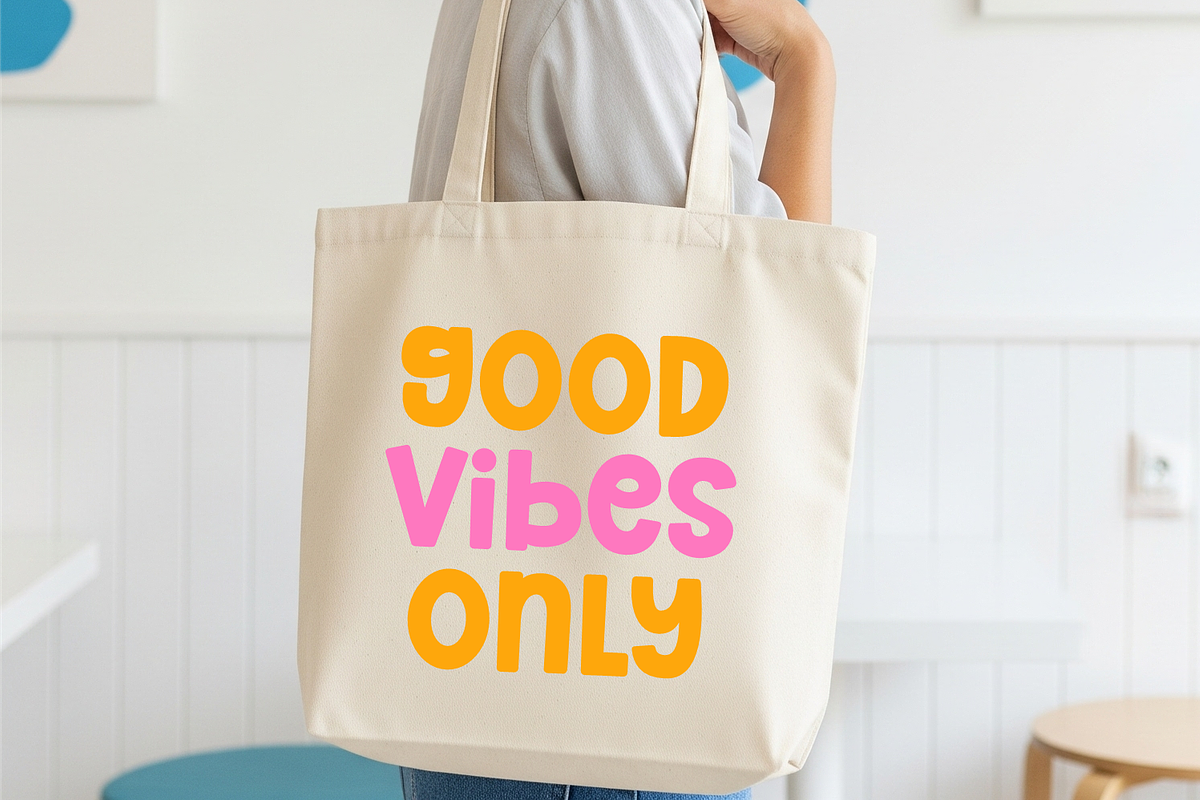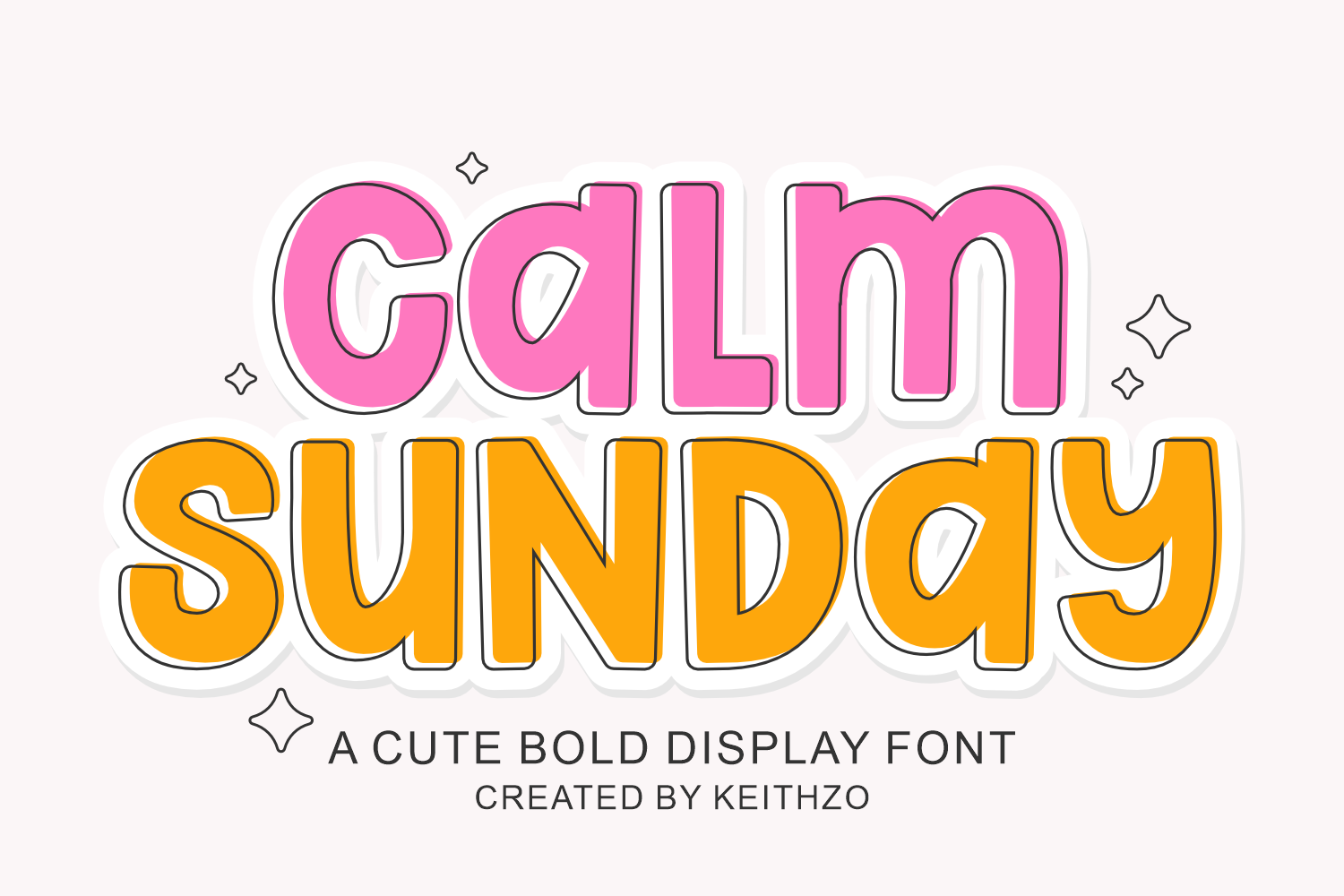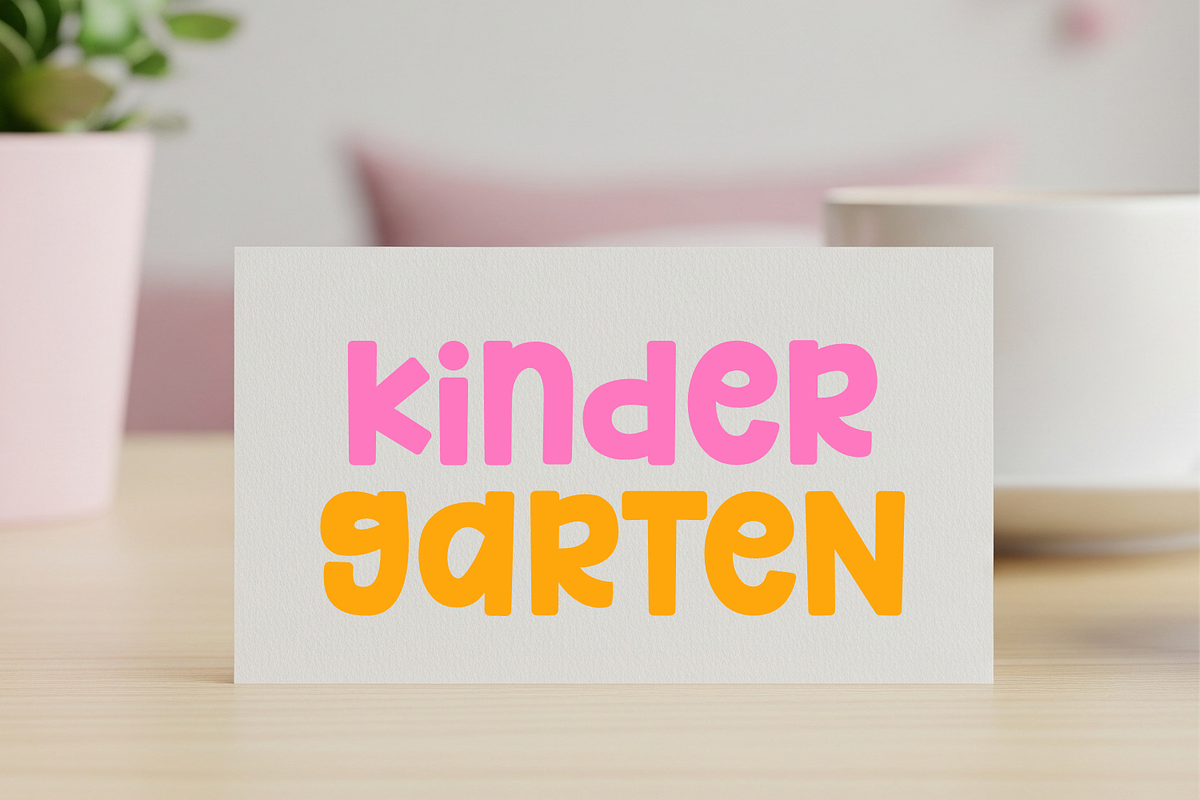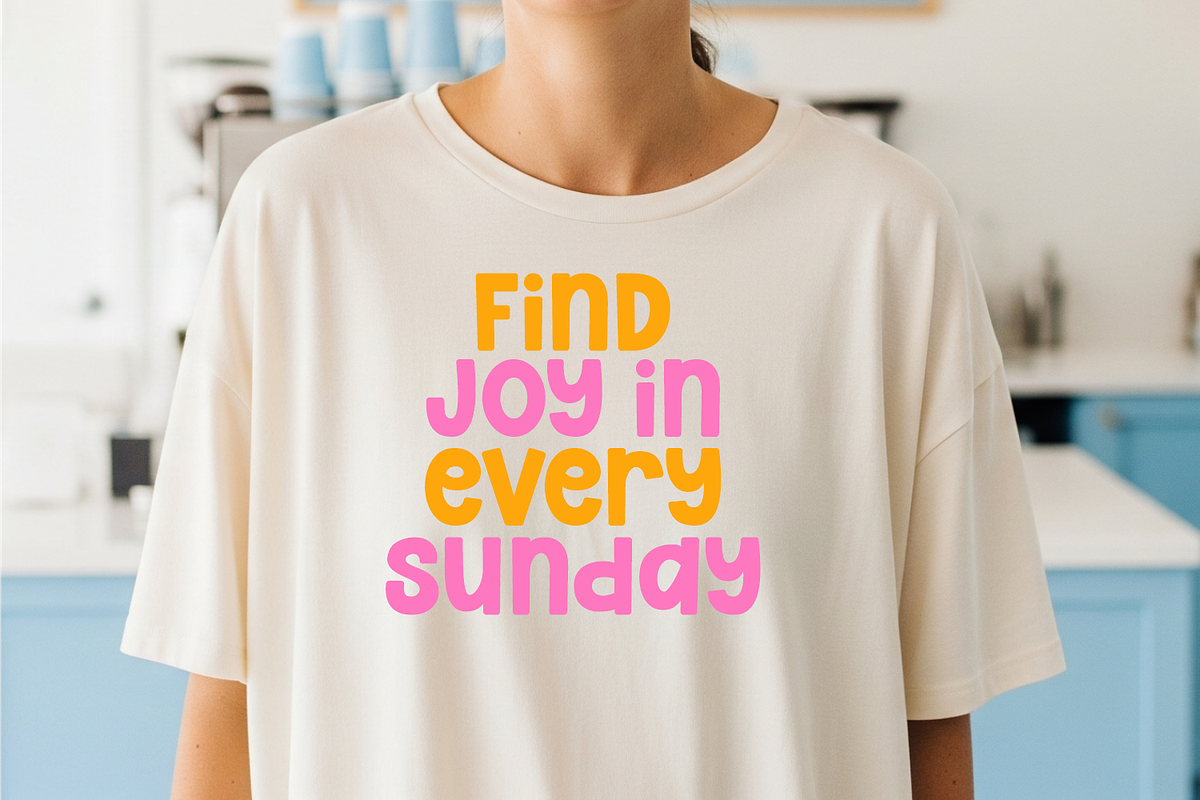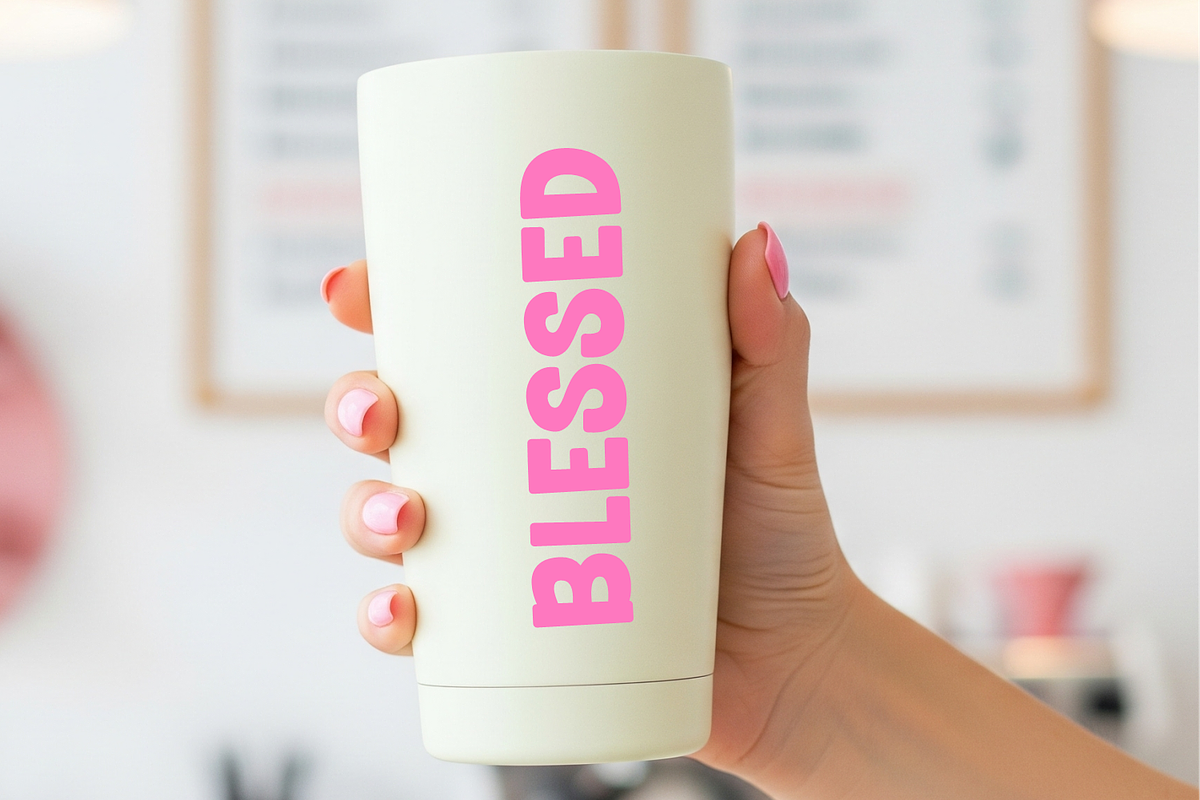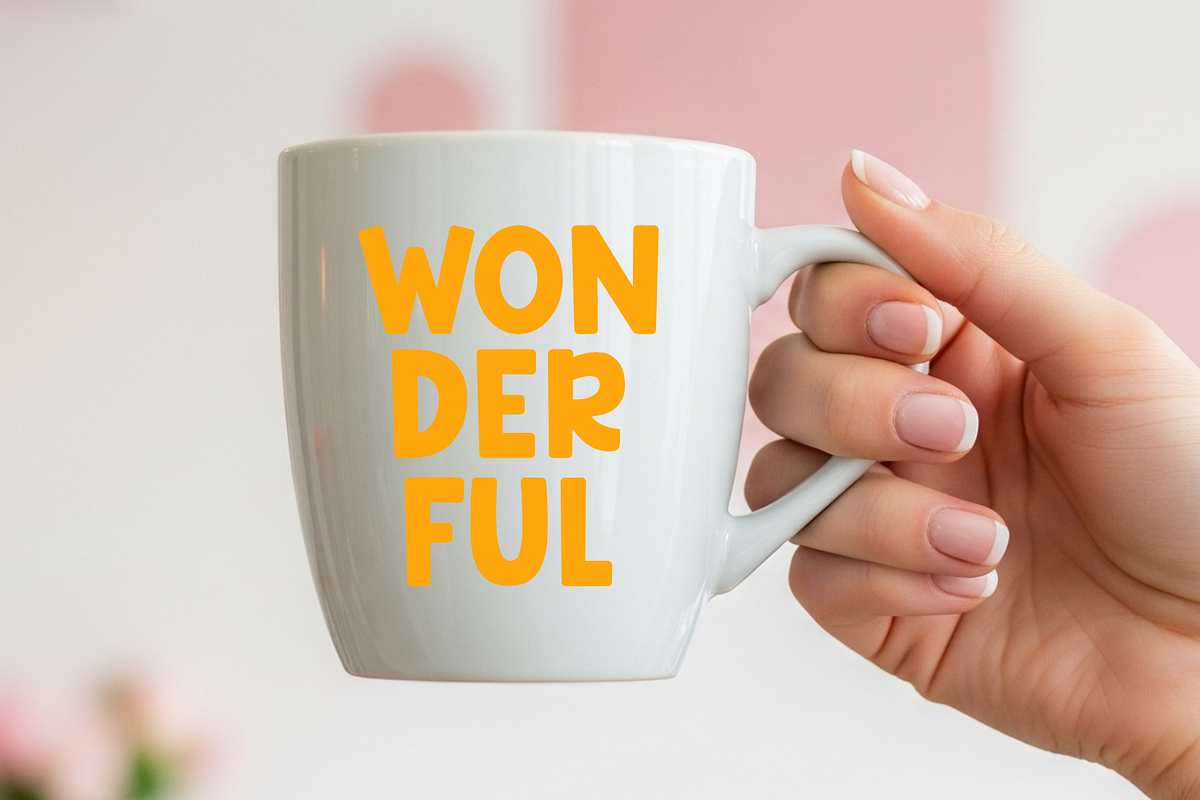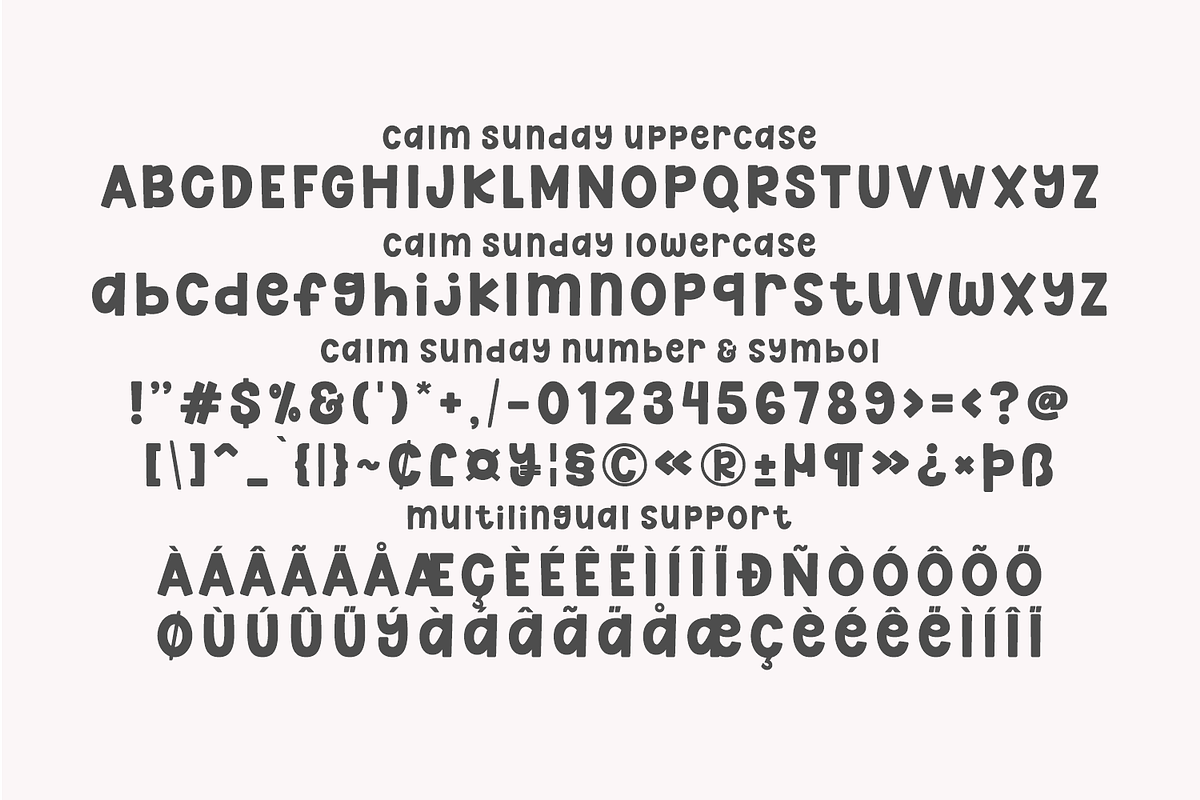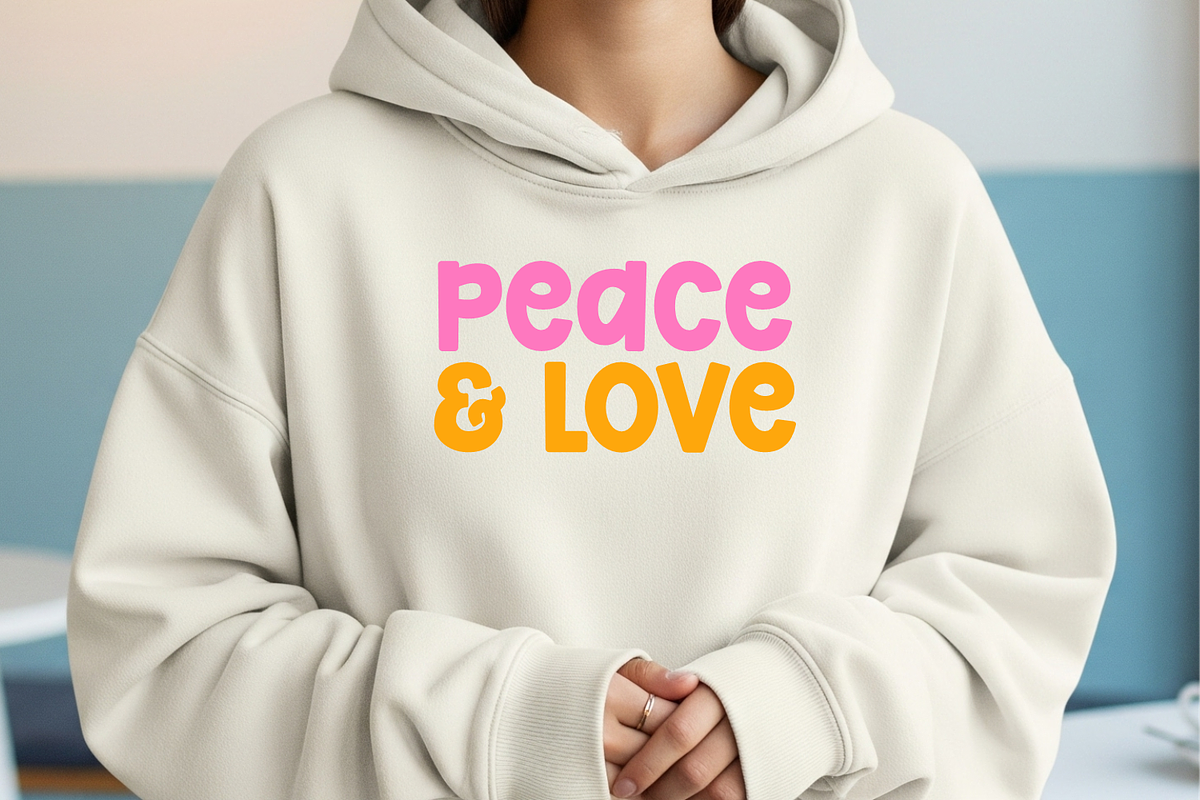
Calm Sunday - Playful Display Font
Calm Sunday is an aesthetic and cozy display fonts designed to bring a sense of peace and warmth to all your creative projects. This fonts features soft, rounded edges and a balanced weight that radiates a gentle yet modern vibe, making it the perfect choice for minimalist branding, heartfelt quotes, and elegant logo designs. This versatile fonts is highly recommended for lifestyle merchandise such as custom apparel, organic packaging, and home decor branding that requires a touch of serenity.